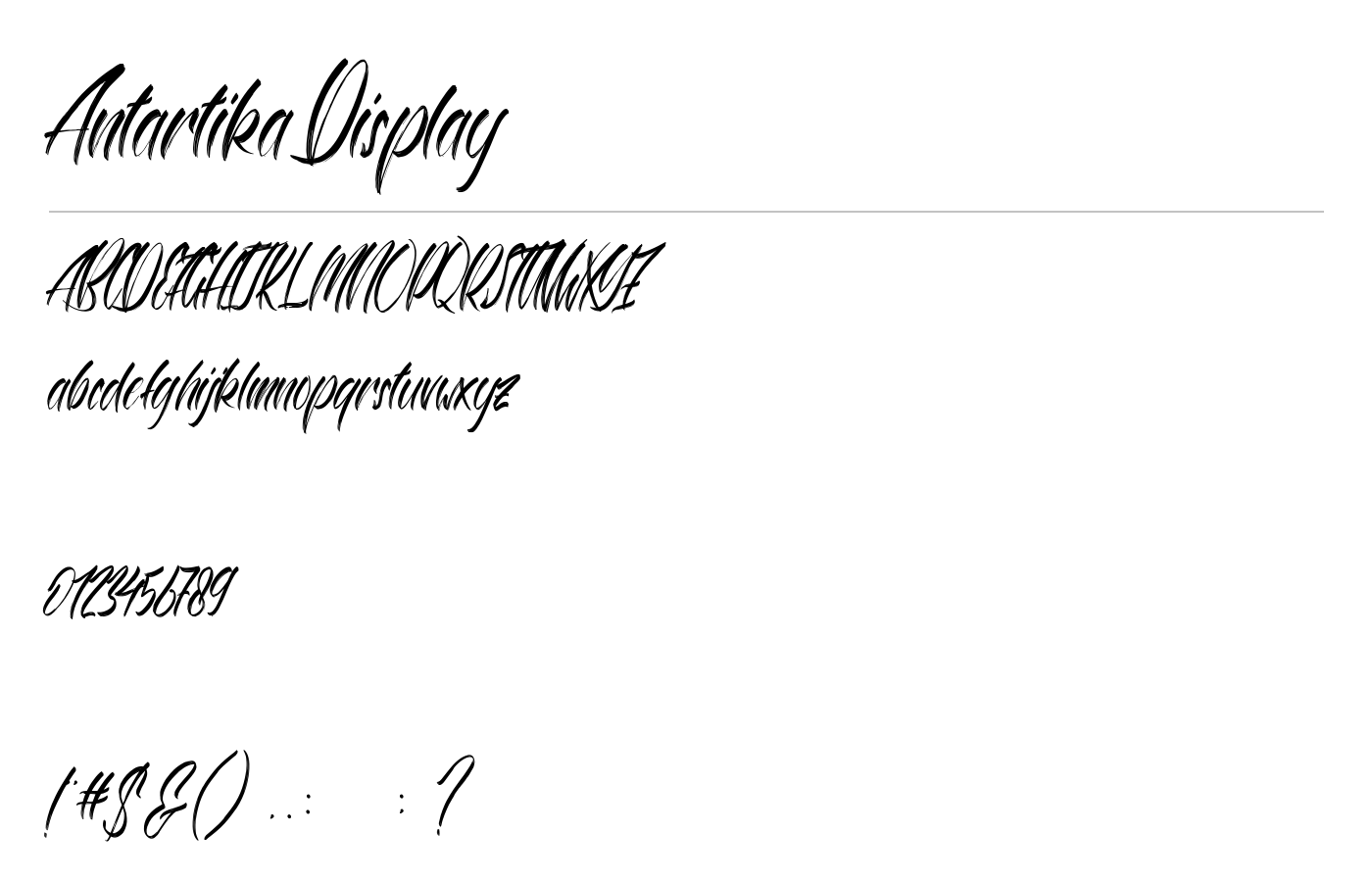
Antartika Display is a slender, elegant script font with a lively, hand-brushed style that gives it a dynamic and artistic feel. Its tall, narrow letterforms with sharp, flowing strokes make it perfect for creative and stylish designs that need a personal, expressive touch. This font works wonderfully for logos, invitations, headlines, and branding where a modern, sophisticated, and unique look is desired.
Antartika Display Font
About Antartika Display Font
| Font family | Antartika Display Font |
| Designer | Pineungtype |